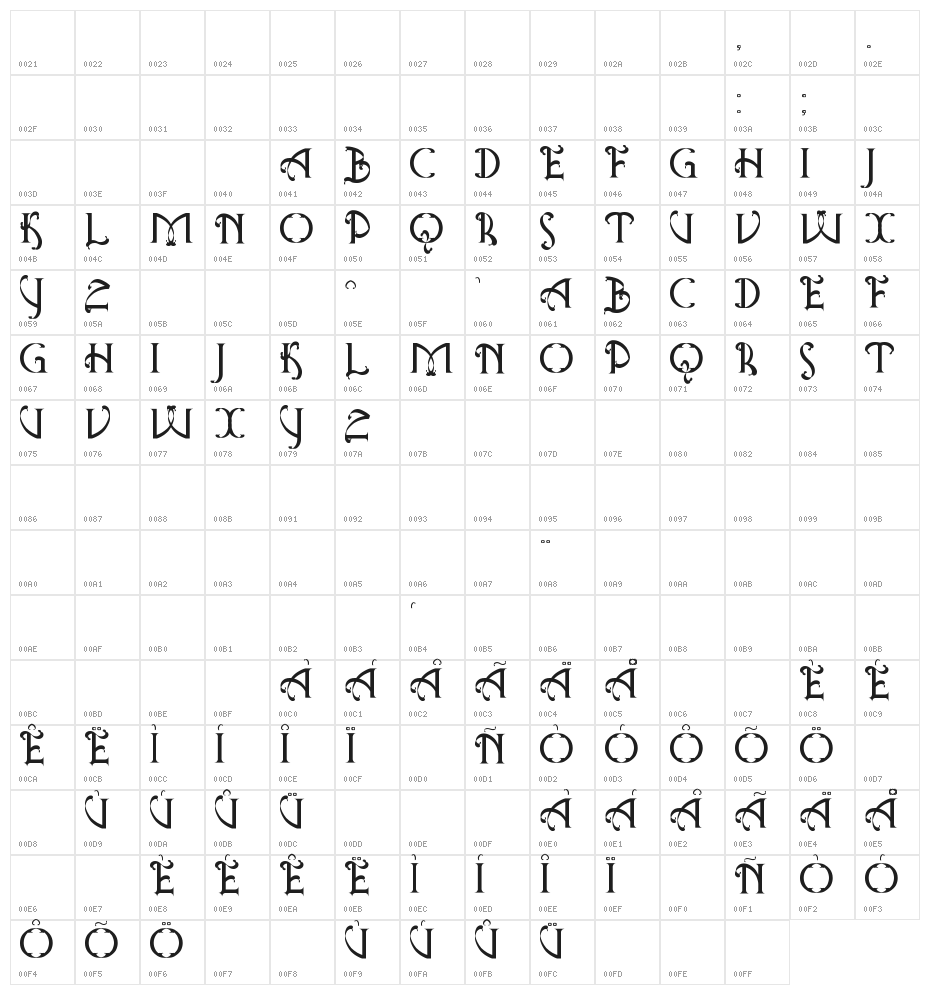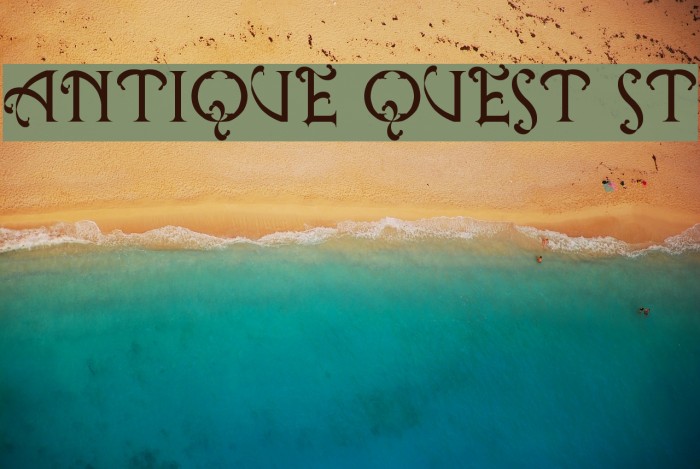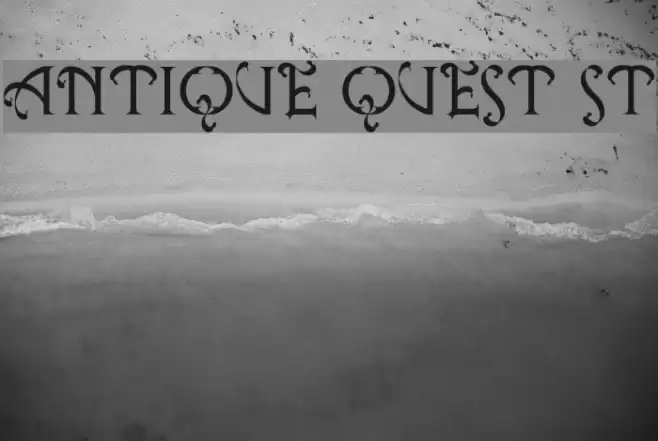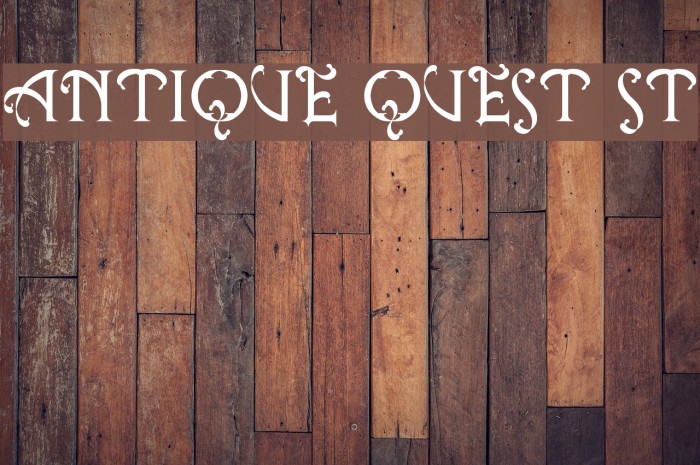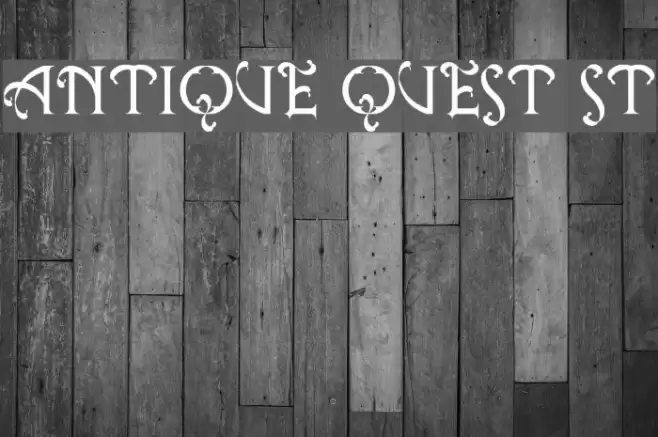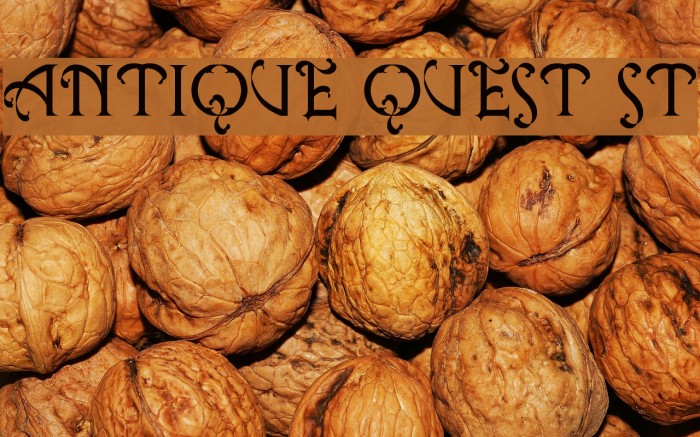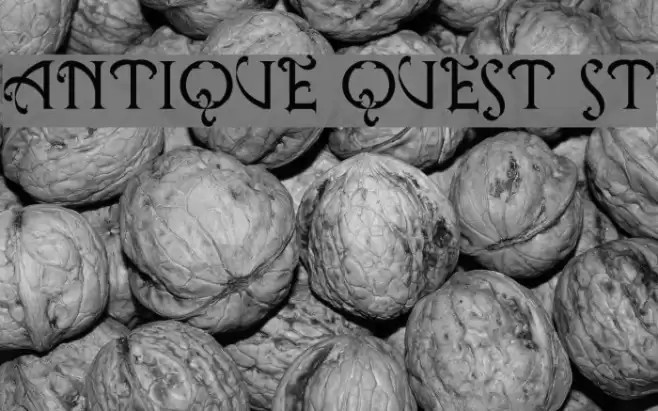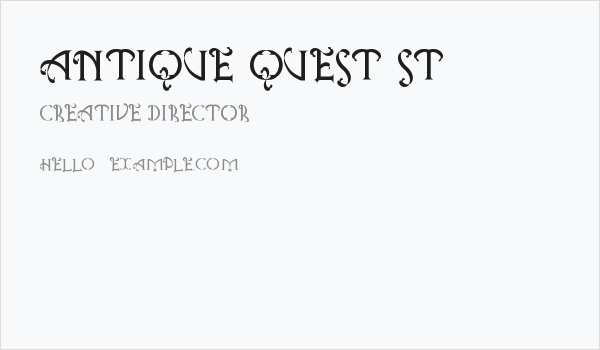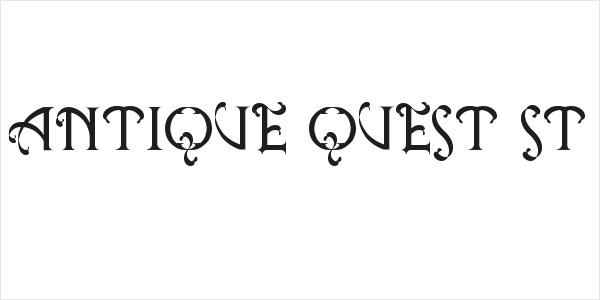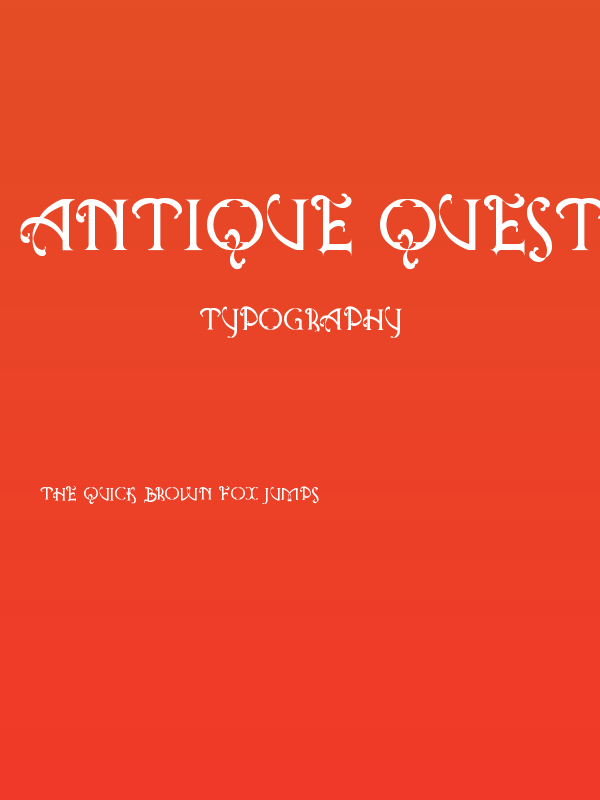
Antique Quest St Font
Antique Quest St Description
This font features an ornate and decorative style, reminiscent of medieval script with intricate flourishes and embellishments. The uppercase letters are highly stylized, with elaborate curves and pointed serifs that give a sense of grandeur and historical elegance. The design includes unique elements that make each character stand out, adding a touch of sophistication and artistry. The overall appearance is bold and impactful, suitable for creating a strong visual impression. The font's intricate details and historical flair make it ideal for projects that require a touch of antiquity and elegance.
| Proposed Projects | Ideal for historical themed designs, invitations, book covers, and branding that requires a classic and elegant touch. |